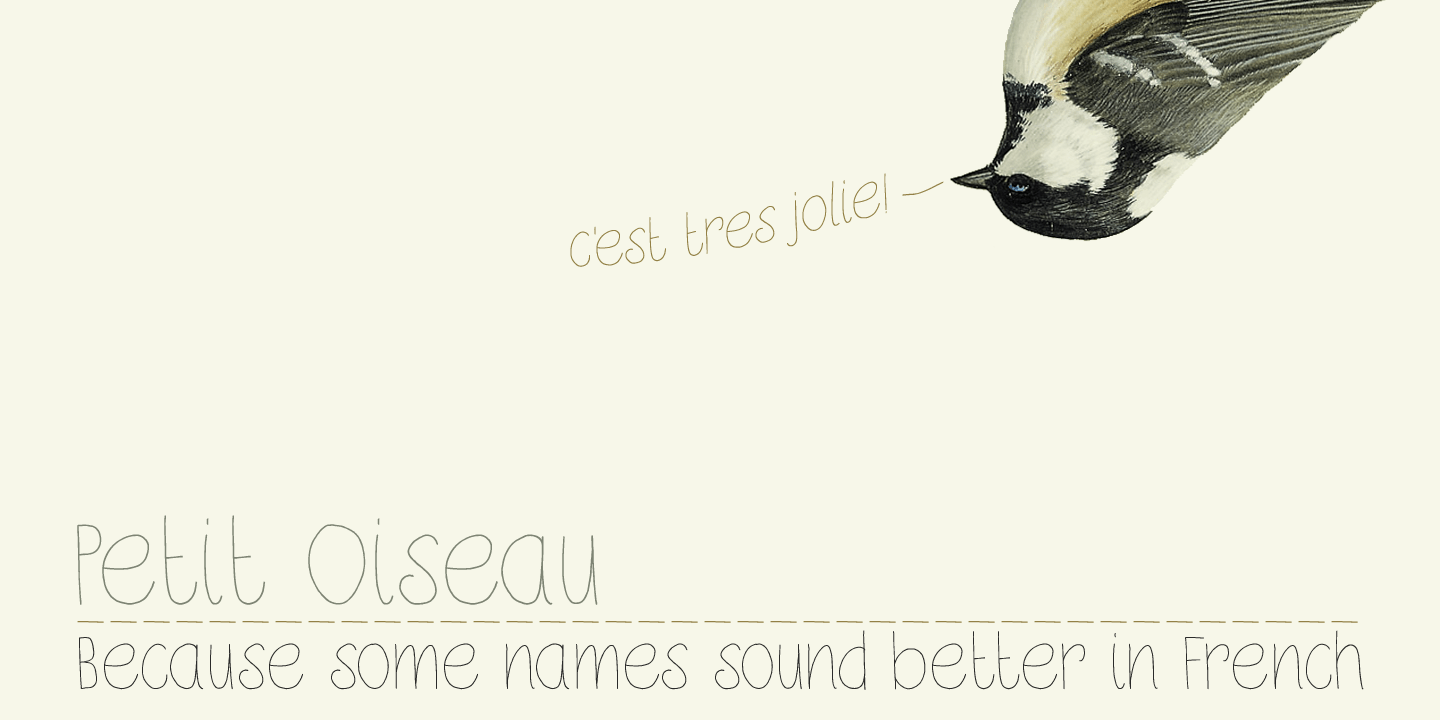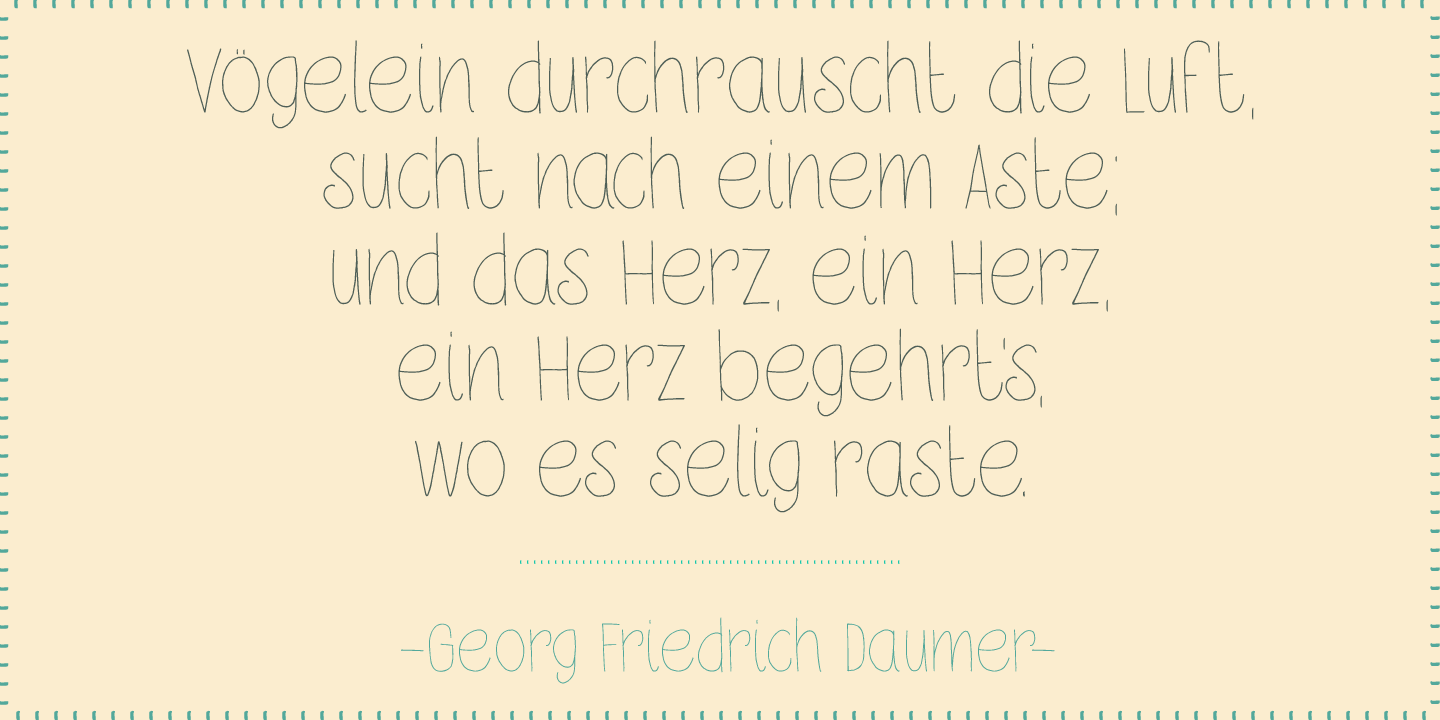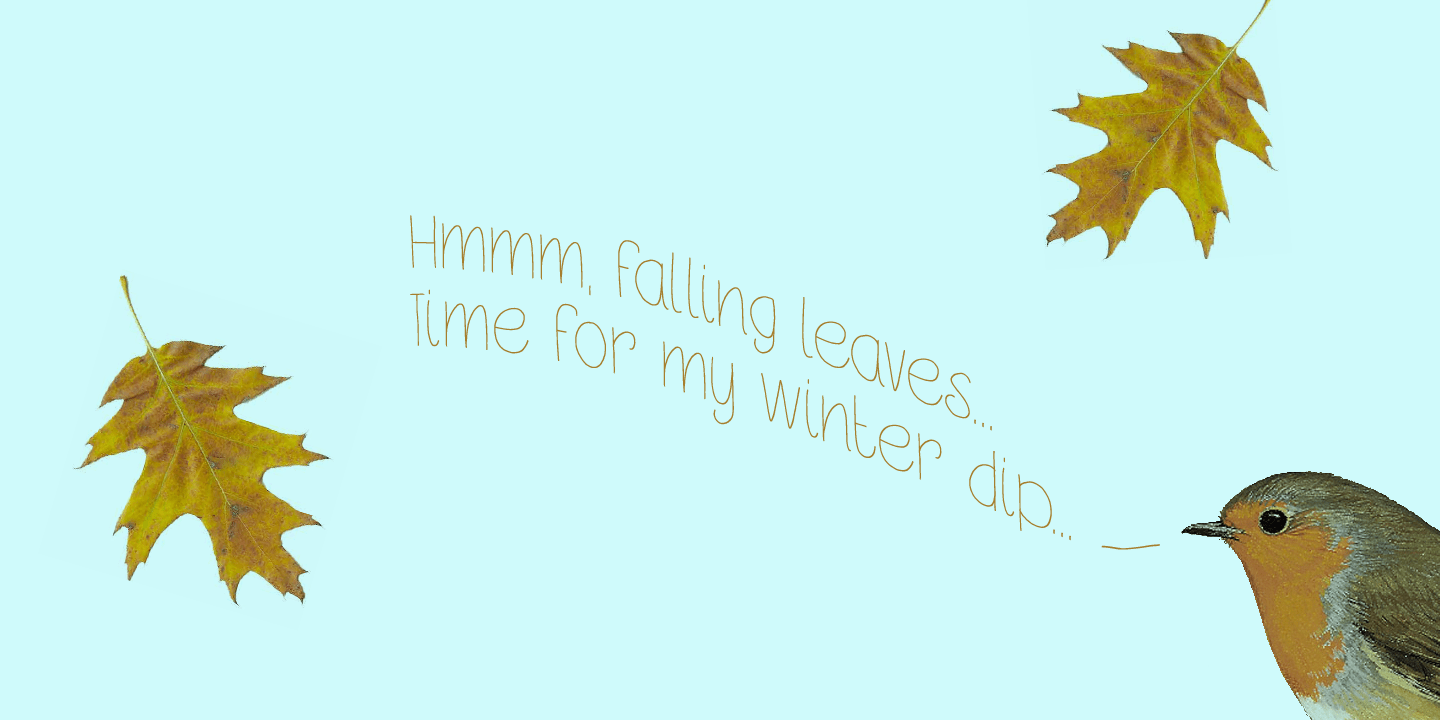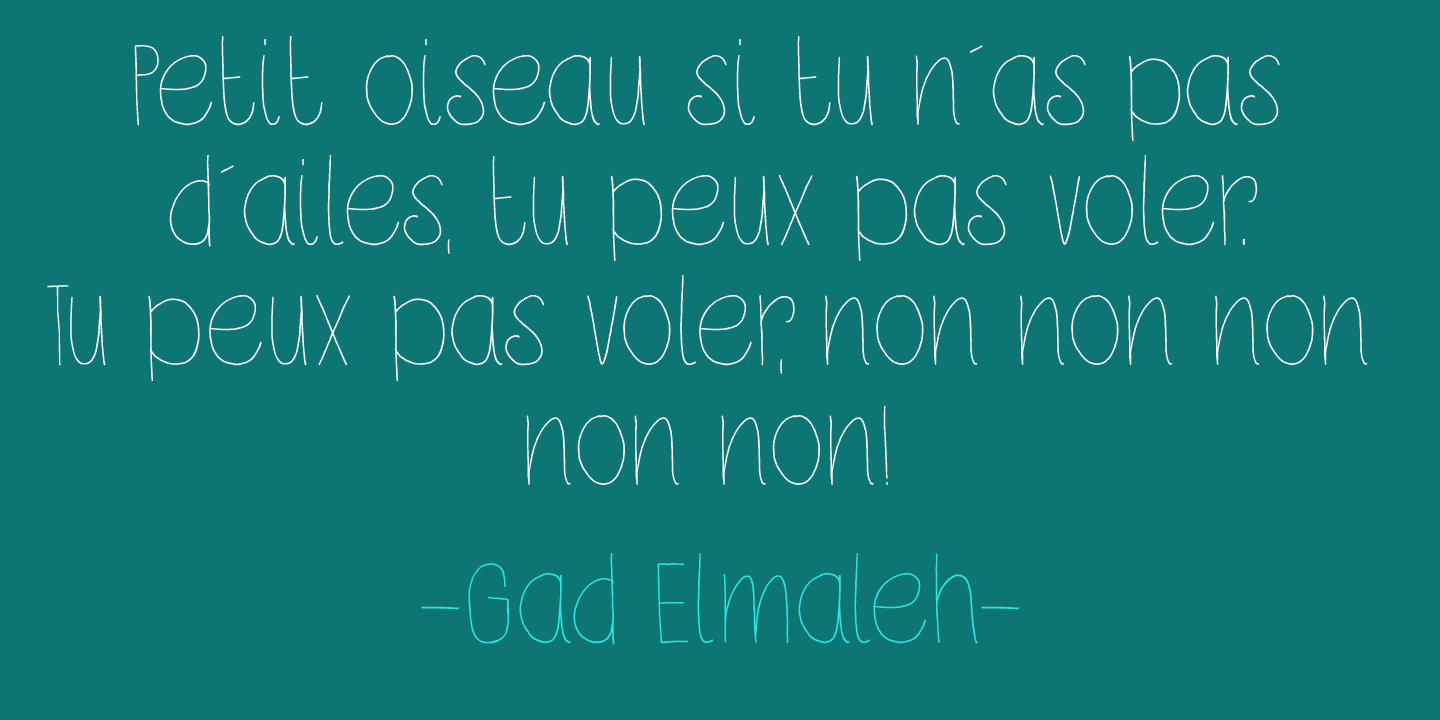
Petit Oiseau
Petit Oiseau (Little Bird in French) is a very nice and very legible 'back-to-school' kind of typeface. It is thin, elegant and stylish, yet retains a certain youthfulness. Petit Oiseau comes with Babylonian language support!